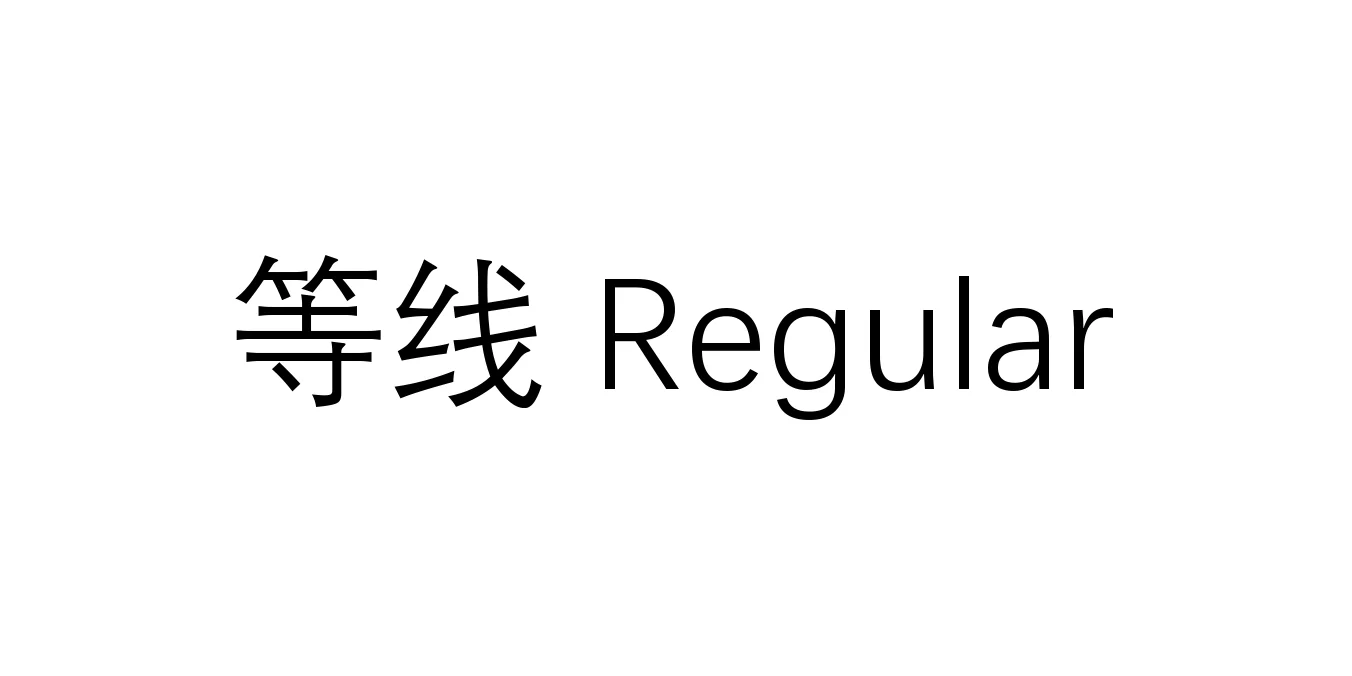
等线 Regular
Designed by Microsoft Corporation
| Category | Sans-serif (Simplified Chinese) |
| Designer | Microsoft Corporation |
DengXian (等线) is a sans-serif typeface designed by Microsoft, introduced as the default Chinese font for Microsoft Office 2016. Its development was driven by the need for a modern, clean interface that performs exceptionally well on high-resolution displays. Unlike its predecessor, SimSun, DengXian features equal-width strokes and a geometric structure, providing a more contemporary and streamlined look for digital text consumption.
The Regular weight of DengXian is optimized for readability across both screen and print. It belongs to the 'Neo-grotesque' style of Chinese typography, focusing on clarity and simplicity. As a system font, it has become one of the most widely used typefaces for business documentation and user interfaces in the Chinese-speaking world, ensuring cross-platform consistency within the Microsoft ecosystem.
等线 Regular Best Uses
The default choice for professional reports and spreadsheets in Microsoft Office.
Highly legible on mobile and desktop screens due to its balanced stroke weight.
Excellent for body text on websites targeting Chinese-speaking audiences.
Provides a fatigue-free reading experience for long-form digital content.